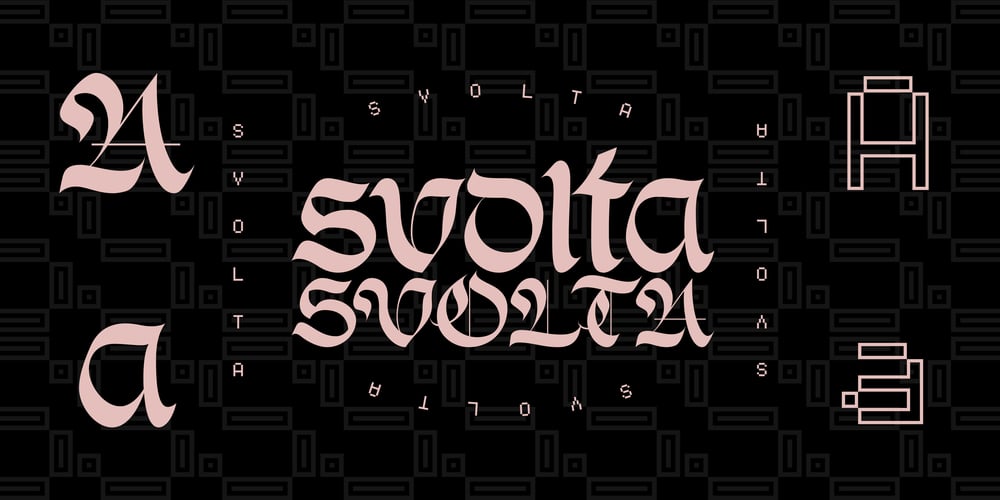
Svolta Font Family was designed by Stefano Giliberti and published by Stefano Giliberti. Svolta contains 12 styles and family package options. SVOLTA is a font family designed by Stefano Giliberti — each character handwritten on paper to form something truly unreplicable, a reinterpretation and celebration of blackletter Germanic typefaces. But its uniqueness goes beyond form: SVOLTA integrates in its styles PARTITA 1990, a pixel typeface aiming in the opposite direction of time, the present and future, resulting in a duo that adds personality and depth to your designs.